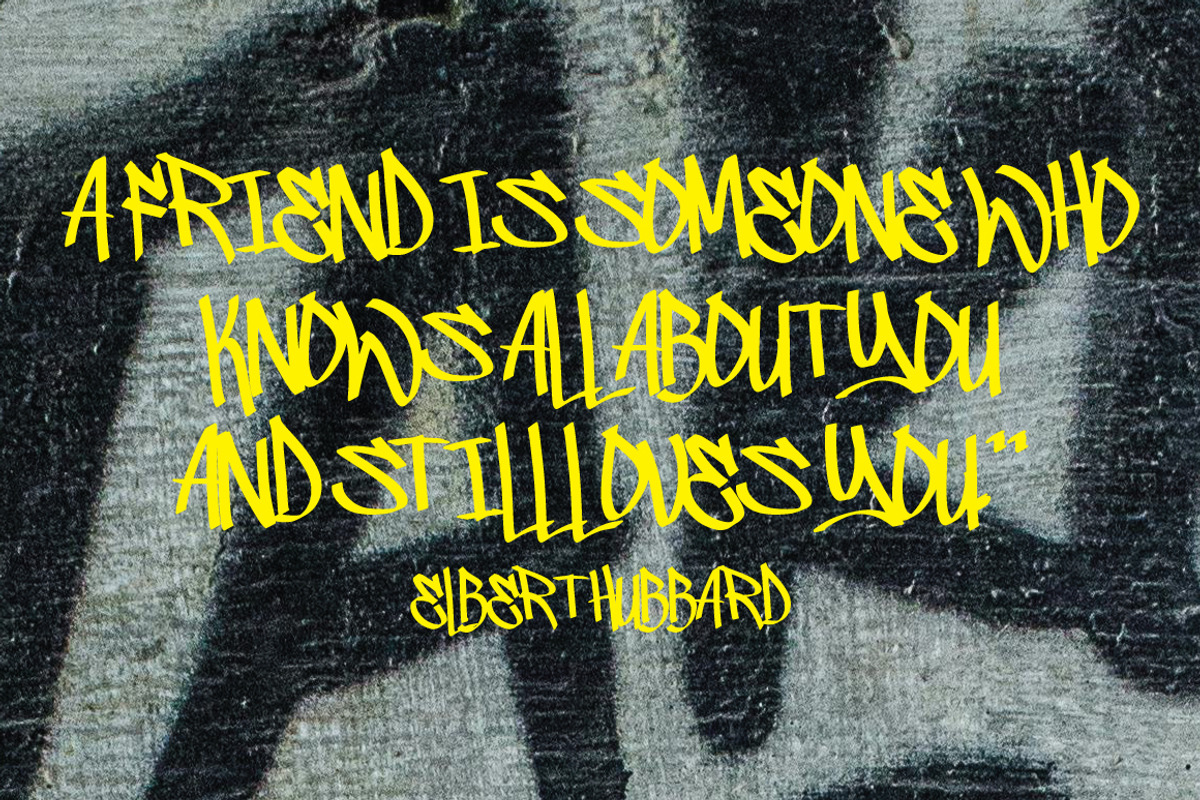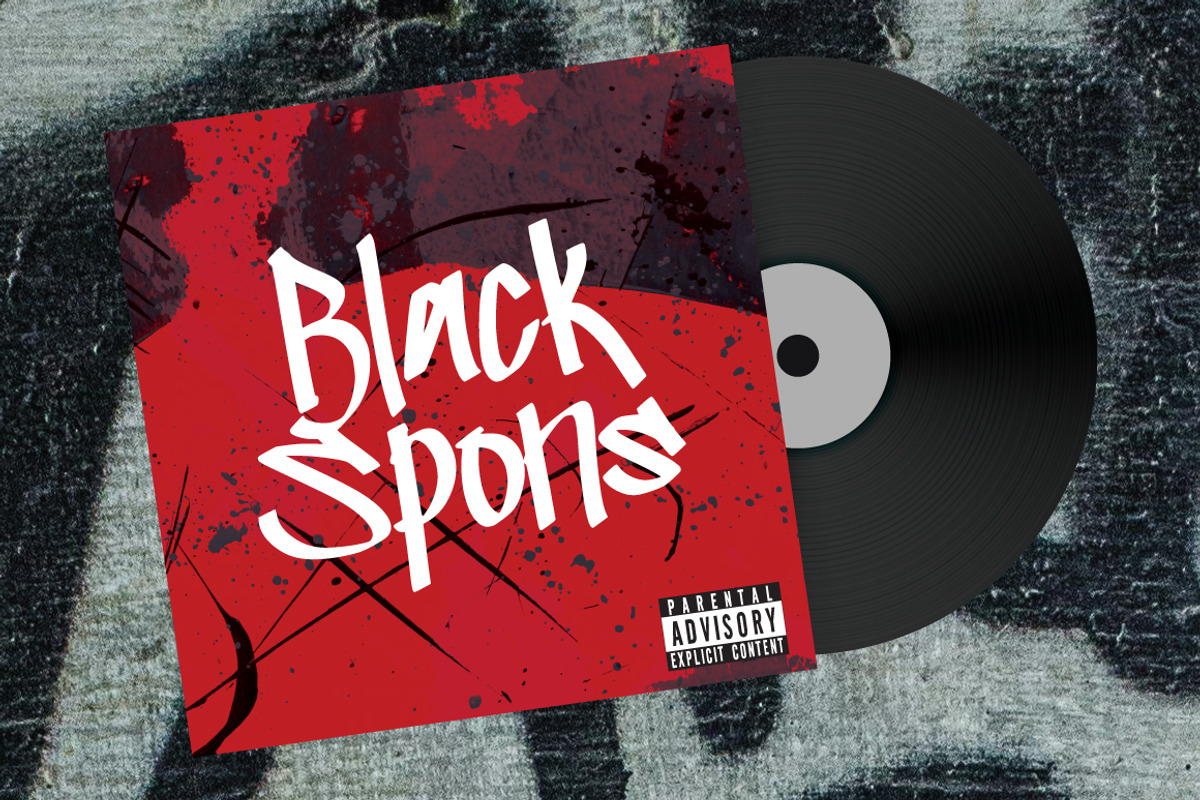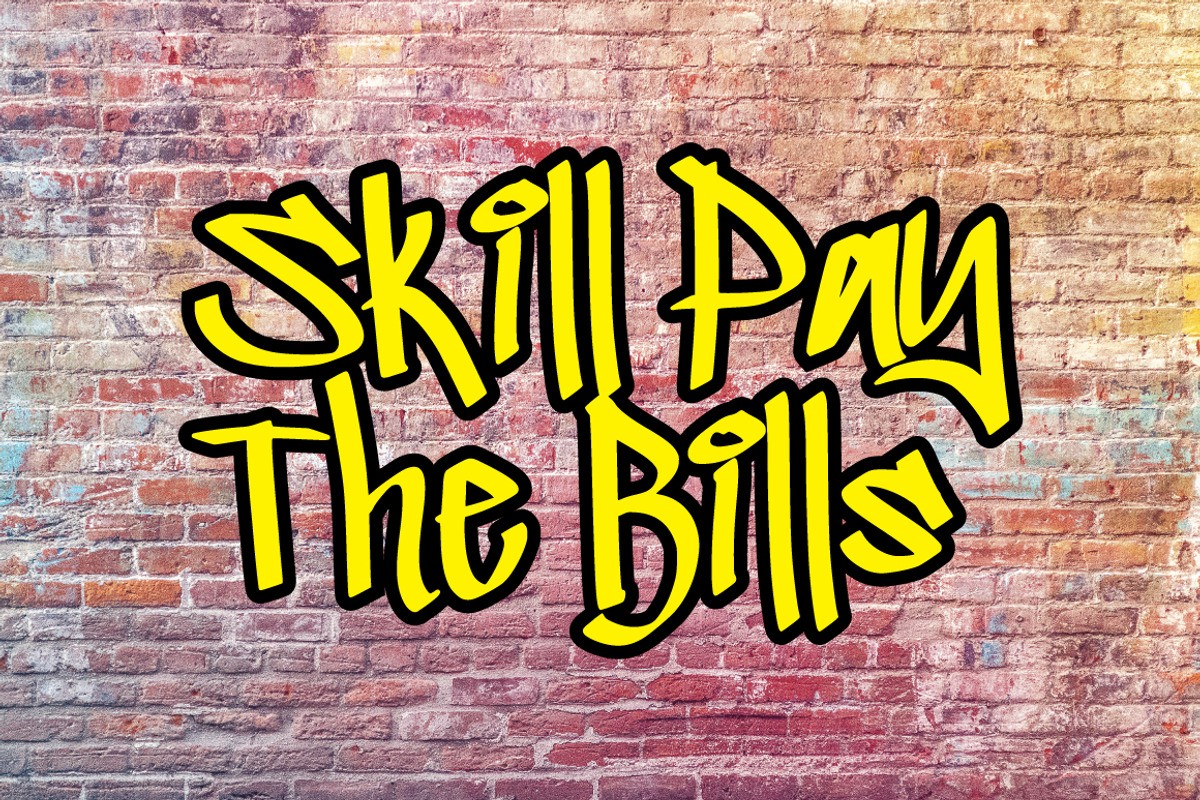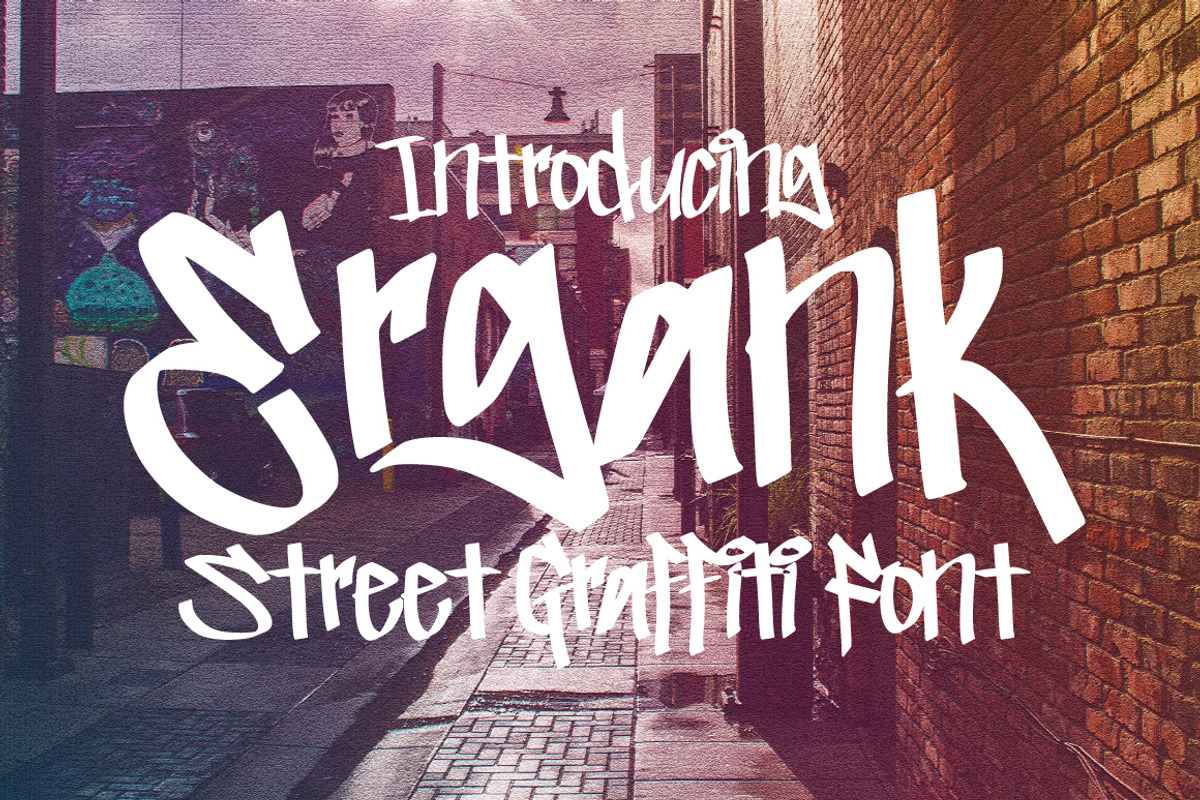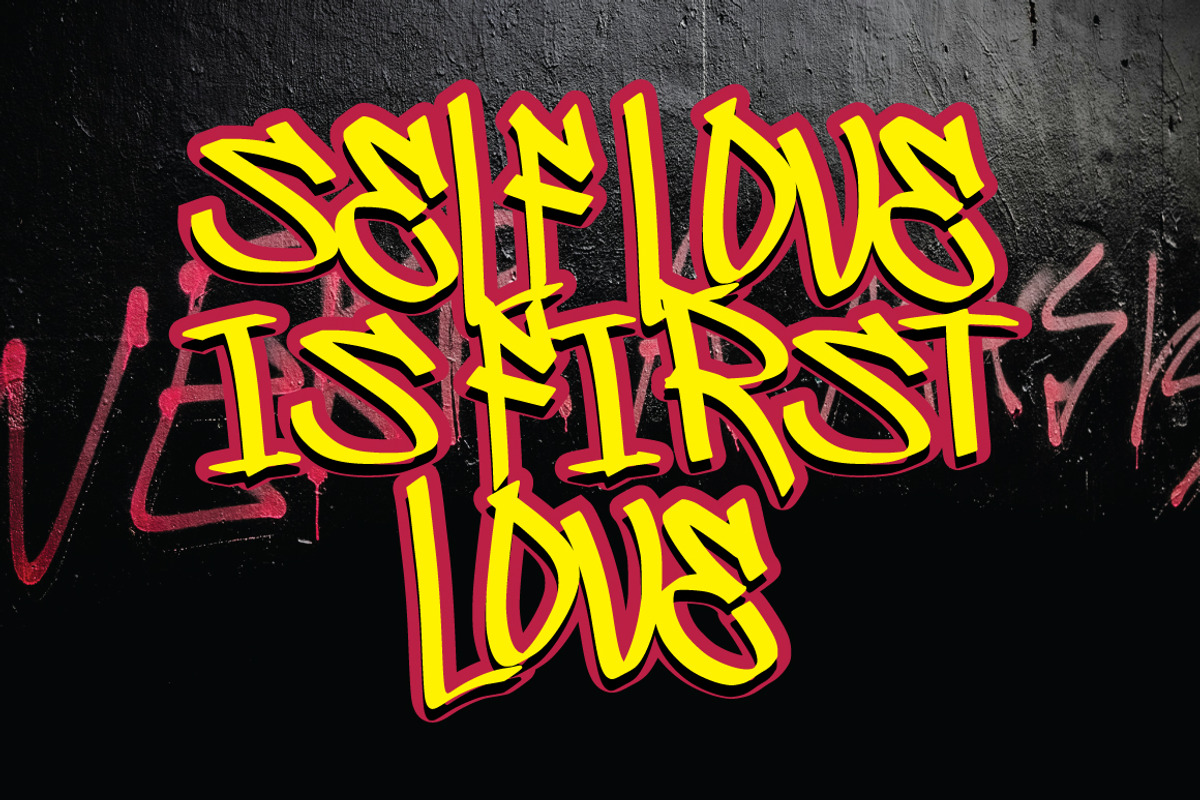
Ergank - Graffiti Font
Ergank Graffiti Font
Dive into the world of contemporary design with Ergank Graffiti Font, a stylish Graffiti font that exudes a sleek and sophisticated vibe. With its seamless strokes and modern aesthetics, Ergank Graffiti Font is the perfect choice for design projects that require a touch of minimalism and elegance.